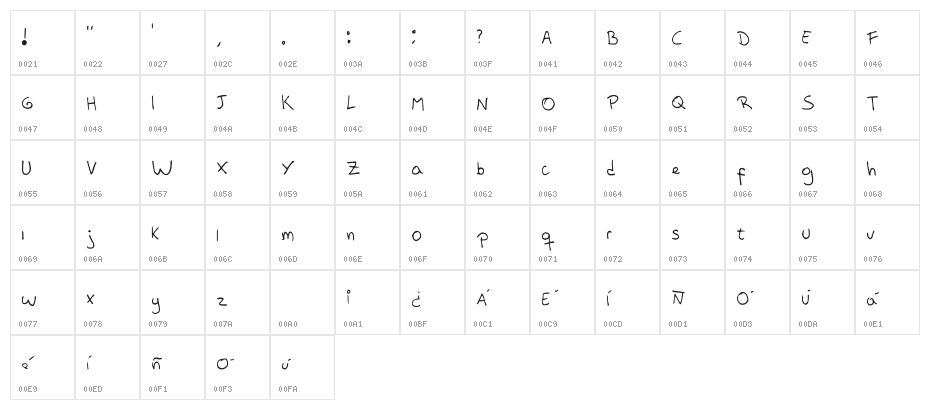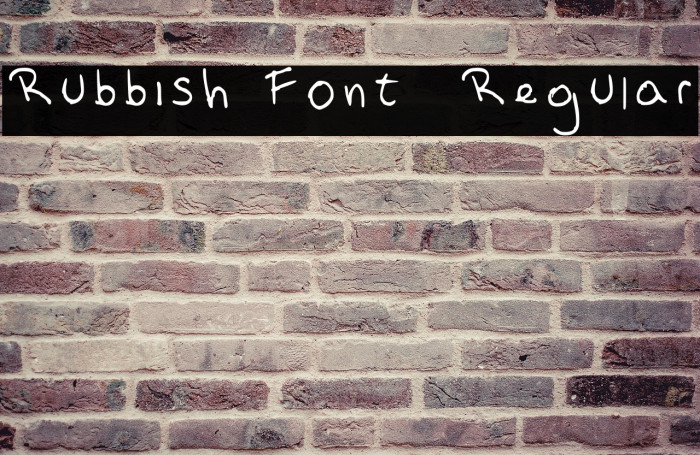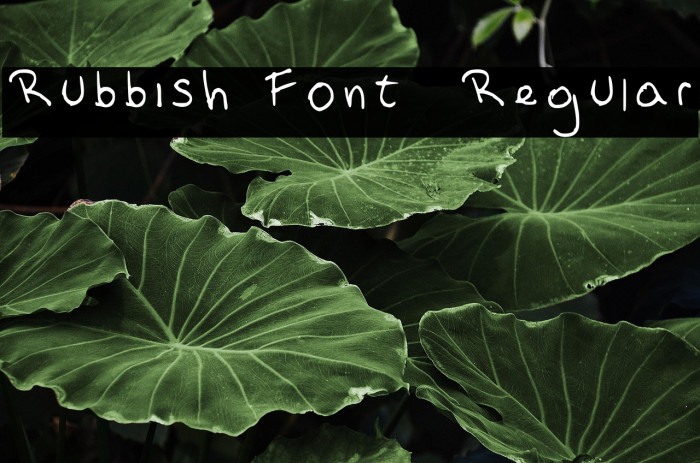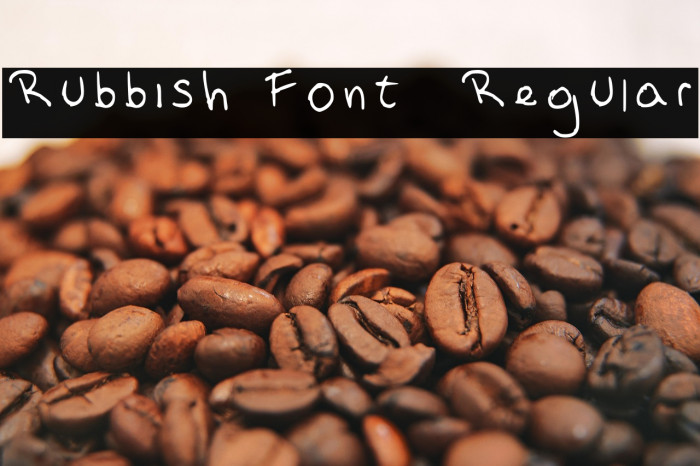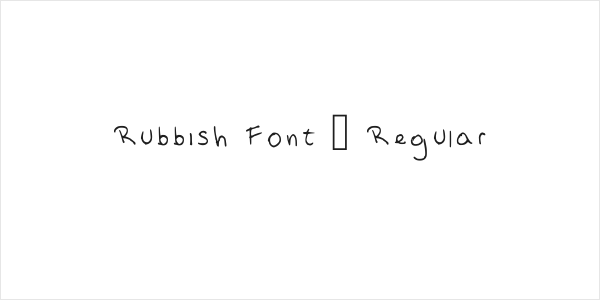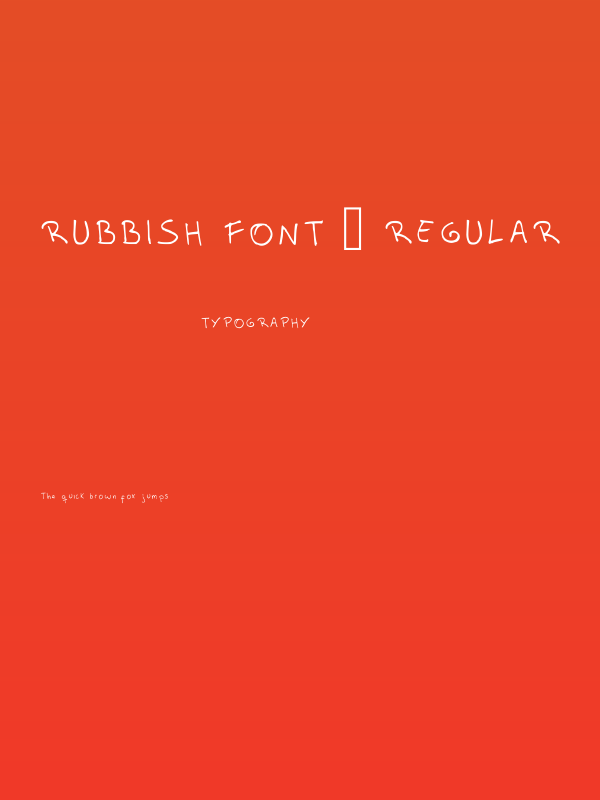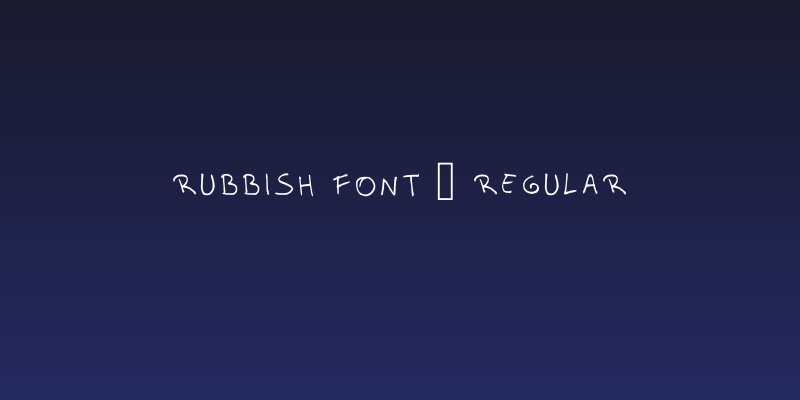
Rubbish Font 2 Regular Font
Rubbish Font 2 Regular Description
A playful, casual handwritten typeface with irregular, slightly uneven strokes and a relaxed, informal appearance. The characters have a natural, organic flow, mimicking quick penmanship.
| Overall Style | Playful, Informal, Handwritten |
| Use Case | Greeting cards, Posters, Informal branding, Children's materials |
| Proposed Projects | Children's books, greeting cards, informal posters, creative branding, personal notes. |